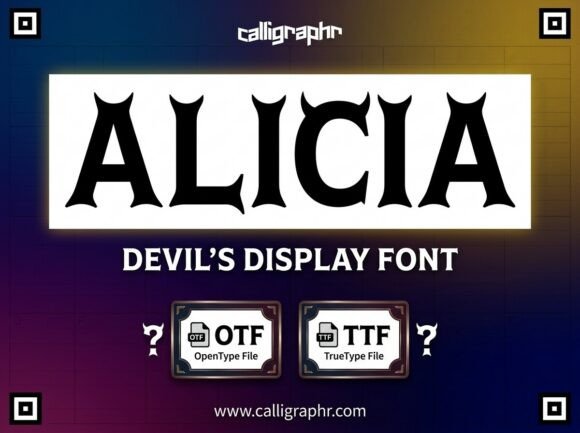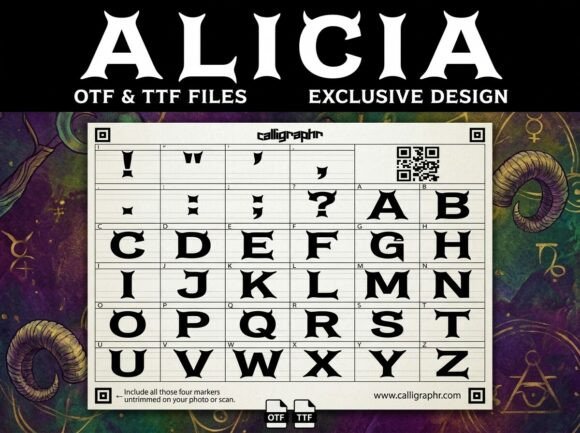
Alicia Font: A Stunning Decorative Display Font for Creative Minds
Are you tired of using the same old fonts for your creative projects? Look no further than the Alicia Font, a stunning decorative display font designed to make a statement. With its unique artistic elements and strong visual personality, this font is perfect for creators who want to break away from the ordinary and add a touch of elegance to their work.
What Makes Alicia Font Special?
The Alicia Font is a versatile decorative font that can be used for a variety of creative projects, including bold headlines, artistic logos, and creative packaging. Its professional and polished finish makes it ideal for designers and crafters who want to add a touch of sophistication to their work.
One of the standout features of the Alicia Font is its unique artistic elements. Each letter is carefully crafted to be a work of art, making it perfect for high-impact headlines, logos, and decorative initials. The font’s strong visual personality is sure to grab attention and leave a lasting impression.
Important Note: All-Caps Display Typeface
Before purchasing the Alicia Font, it’s essential to note that it’s an ALL-CAPS (Uppercase Only) display typeface. This means that it does not include lowercase letters. The font is specifically designed for high-impact headlines, logos, and decorative initials where every letter is a work of art.
Don’t worry if you’re concerned about the lack of lowercase letters – the Alicia Font is designed to make a statement with its bold, uppercase letters. And with its unique artistic elements, you’ll be able to create stunning creative projects that are sure to grab attention.
The Alicia Font is perfect for designers and crafters who want to add a touch of elegance and sophistication to their work. Whether you’re creating a logo, packaging, or a headline, this font is sure to make a statement.
Here are just a few ways you can use the Alicia Font:
- Create stunning logos that grab attention and leave a lasting impression.
- Design beautiful packaging that stands out on store shelves.
- Make a statement with bold headlines that showcase your brand’s personality.
- Add a touch of elegance to your creative projects with decorative initials.
In conclusion, the Alicia Font is a stunning decorative display font that’s perfect for creative minds. With its unique artistic elements, strong visual personality, and professional finish, this font is sure to make a statement in any creative project. Whether you’re a designer or crafter, the Alicia Font is a must-have addition to your font library.